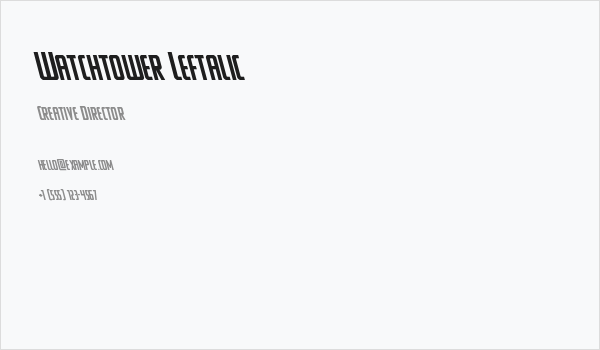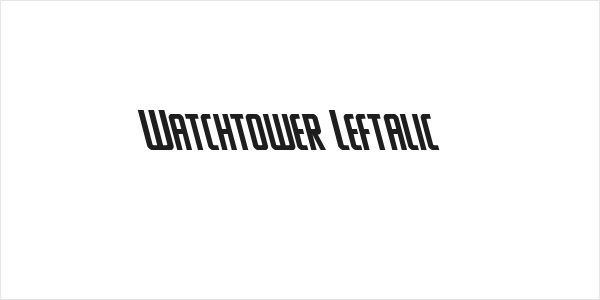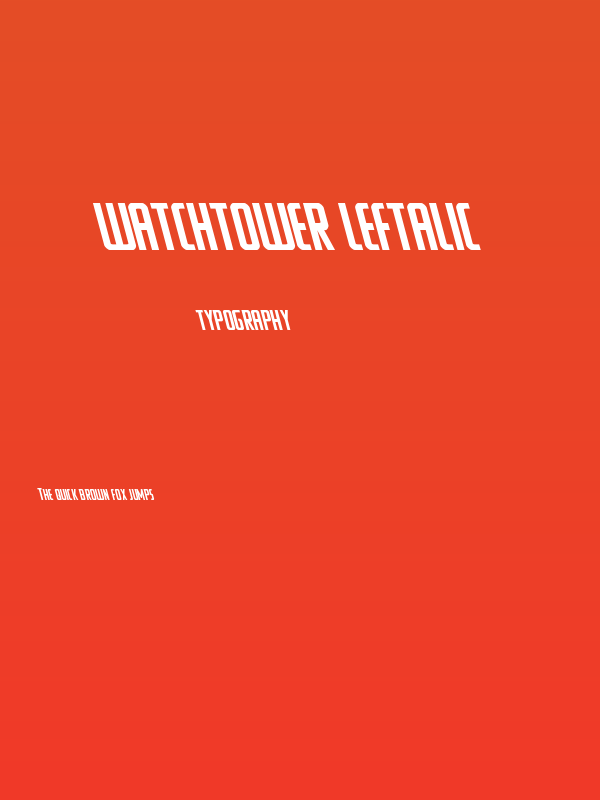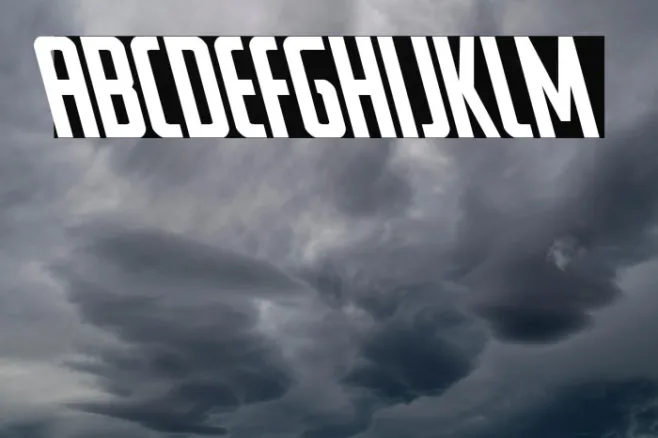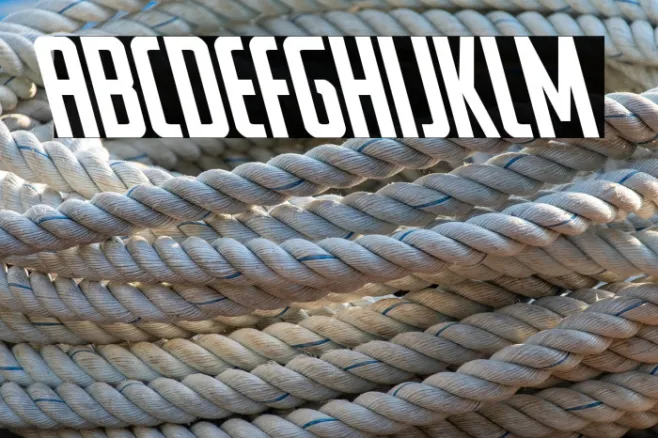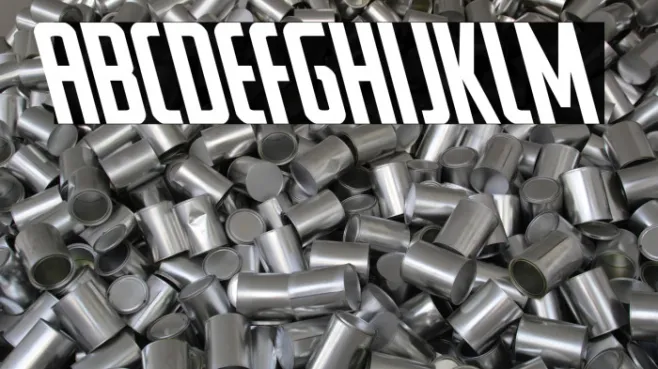
Watchtower Leftalic Font
Watchtower Leftalic Description
This font features a bold and dynamic style with a distinct leftward slant, giving it a sense of motion and urgency. The characters are tall and narrow, with sharp angles and clean lines that create a modern and edgy appearance. The uppercase and lowercase letters maintain a consistent height, contributing to a uniform look across the text. The numbers and special characters follow the same stylistic approach, ensuring cohesion throughout. This font's strong presence makes it ideal for attention-grabbing designs.
| Proposed Projects | Ideal for posters, headlines, branding, and any design that requires a bold statement. |